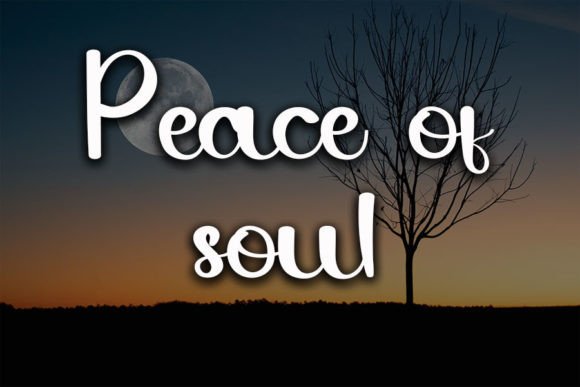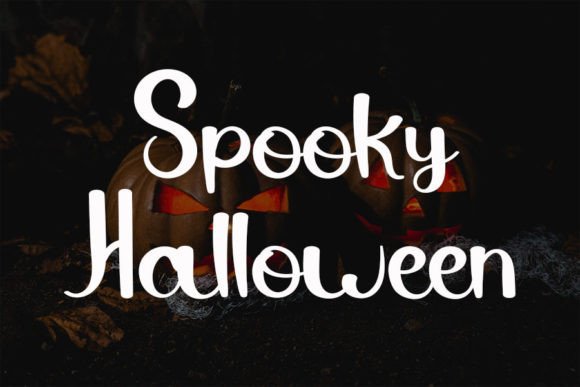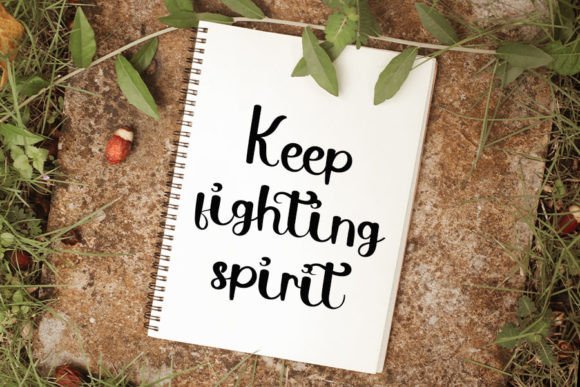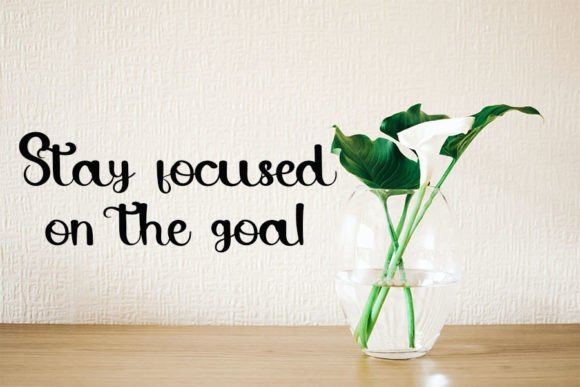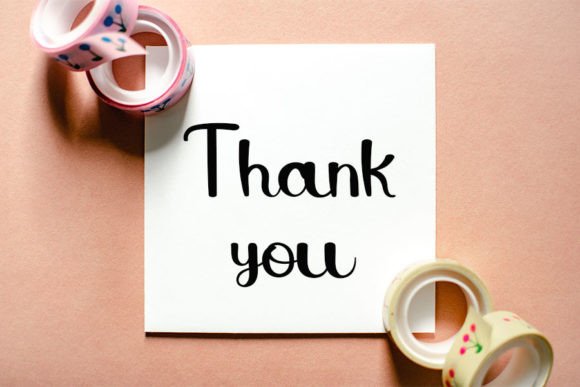
Introduction to Hello Sister Font Font
Hello Sister is a colorful handwritten font carefully created with a touch of elegance.
Clean and a little bit quirky, this font is the perfect fit for all of your logos, branding, social media posts, and crafty DIY projects .